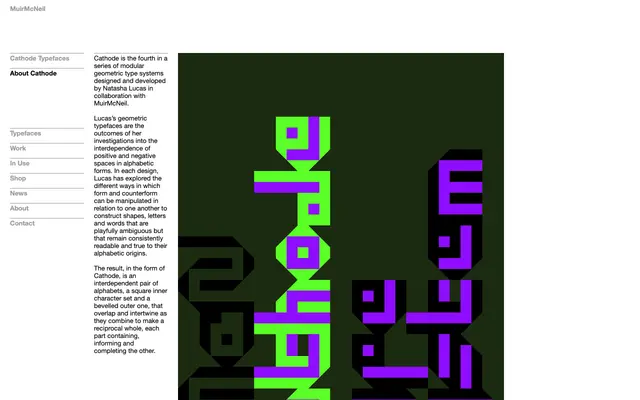
Cathode
Muirmcneil · Natasha Lucas
A modular geometric type system built from two interlocking alphabets, one square inner and one bevelled outer, designed to overlap in precisely registered layers.
Designed by Natasha Lucas in collaboration with MuirMcNeil, Cathode is the fourth in a series of modular geometric systems exploring the relationship between positive and negative space in letterforms. The family comprises three versions cut to register with each other precisely, allowing the square inner character set and bevelled outer one to interlock into a reciprocal whole. The result is an alphabet that reads consistently while maintaining a deliberate visual ambiguity between form and counterform.
Cathode is a modular geometric display system built around the interdependence of positive and negative space, using interlocking layered alphabets rather than conventional letterform construction.